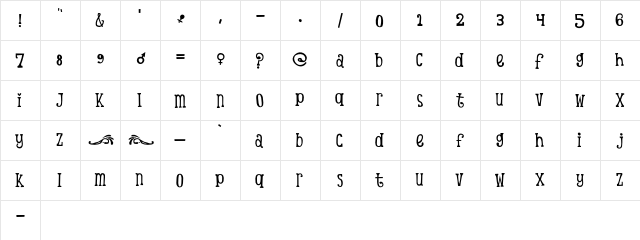
SC Tina's Baby Shower Demo
Design Context for SC Tina's Baby Shower Typeface
SC Tina's Baby Shower offers clean, dependable letterforms without strong stylistic allegiance, making it a practical choice for designers who need flexibility.
Pro Tip: Use SC Tina's Baby Shower in both headline and body roles to test its range before committing to a single application.